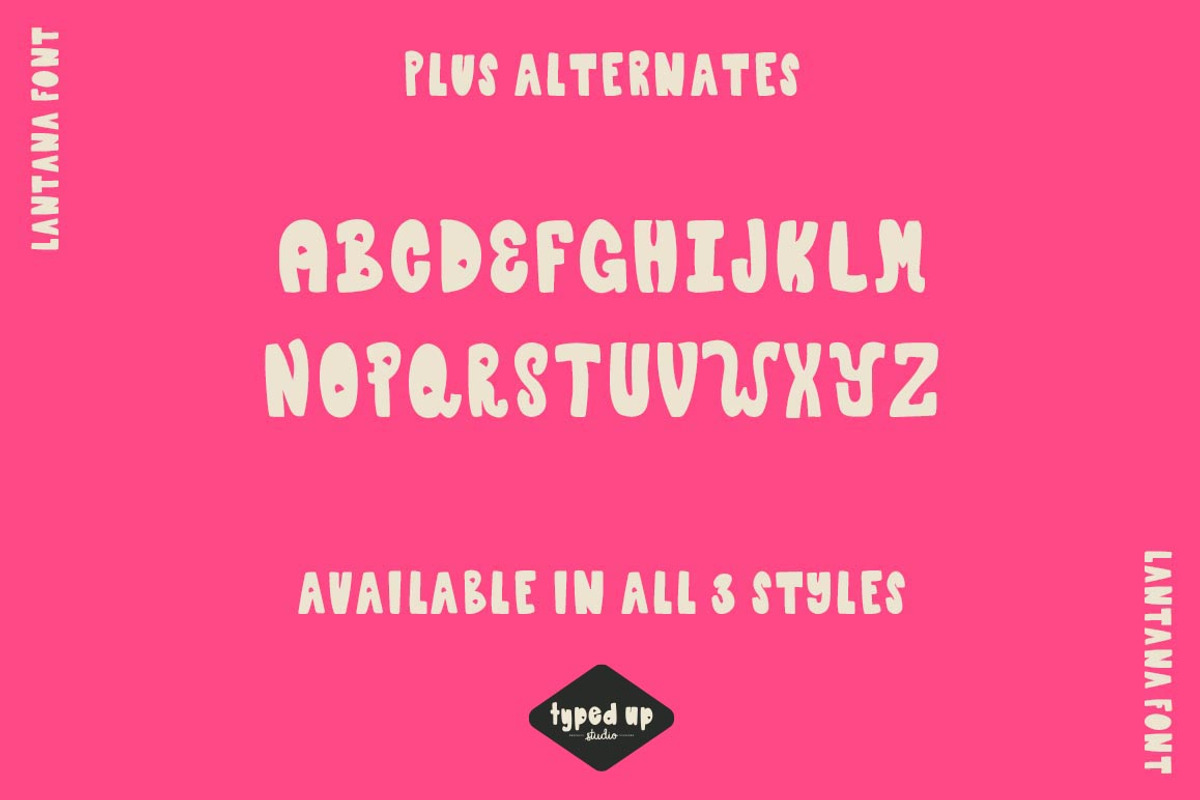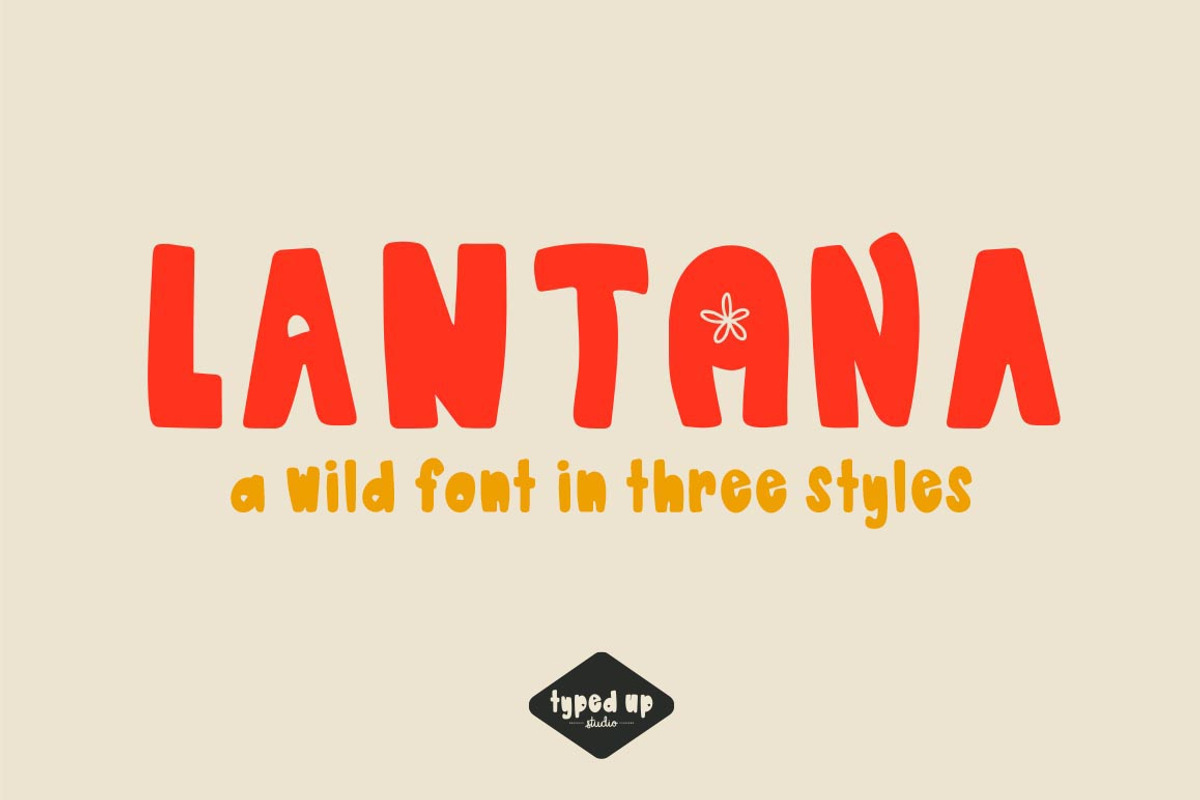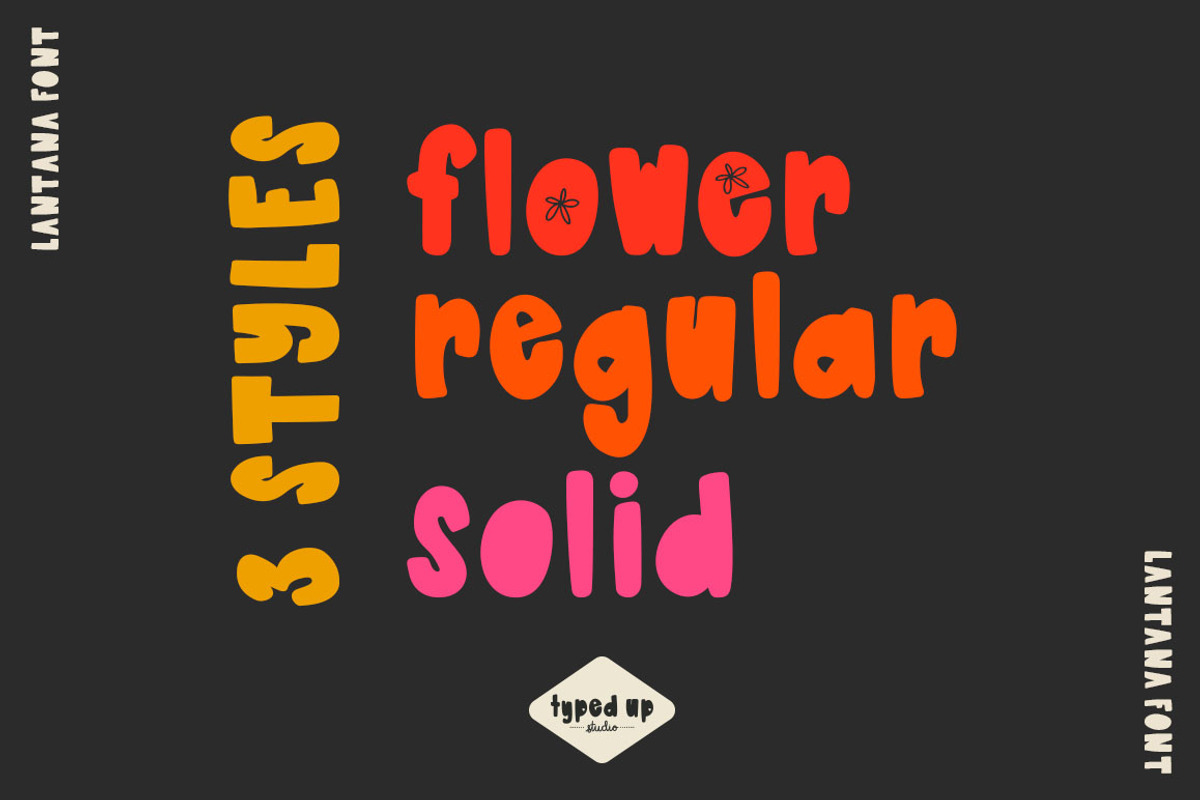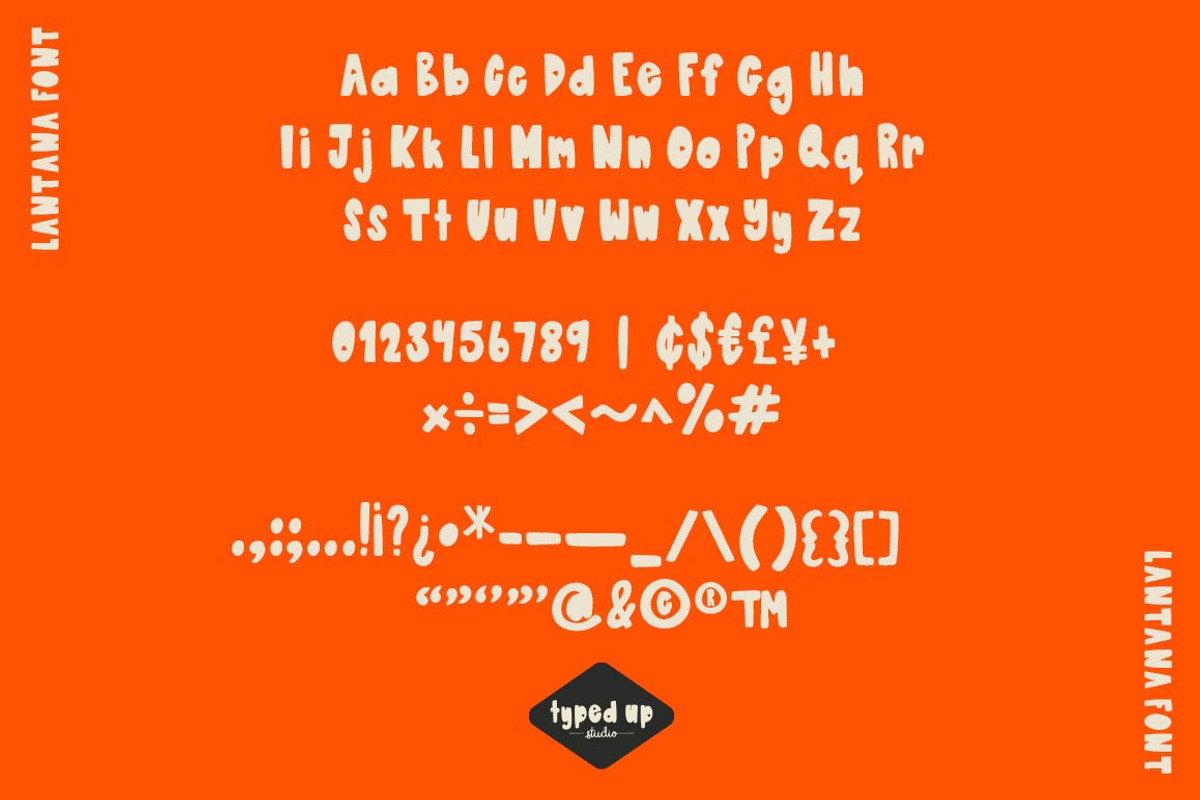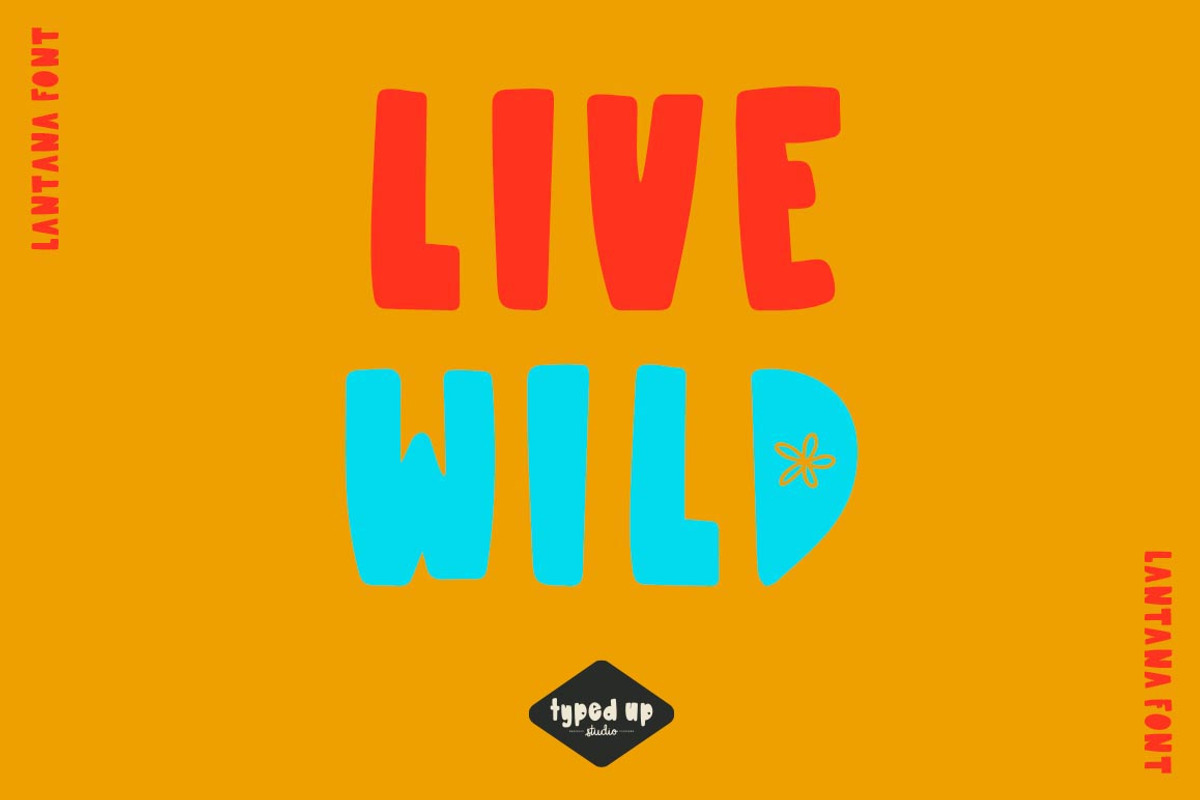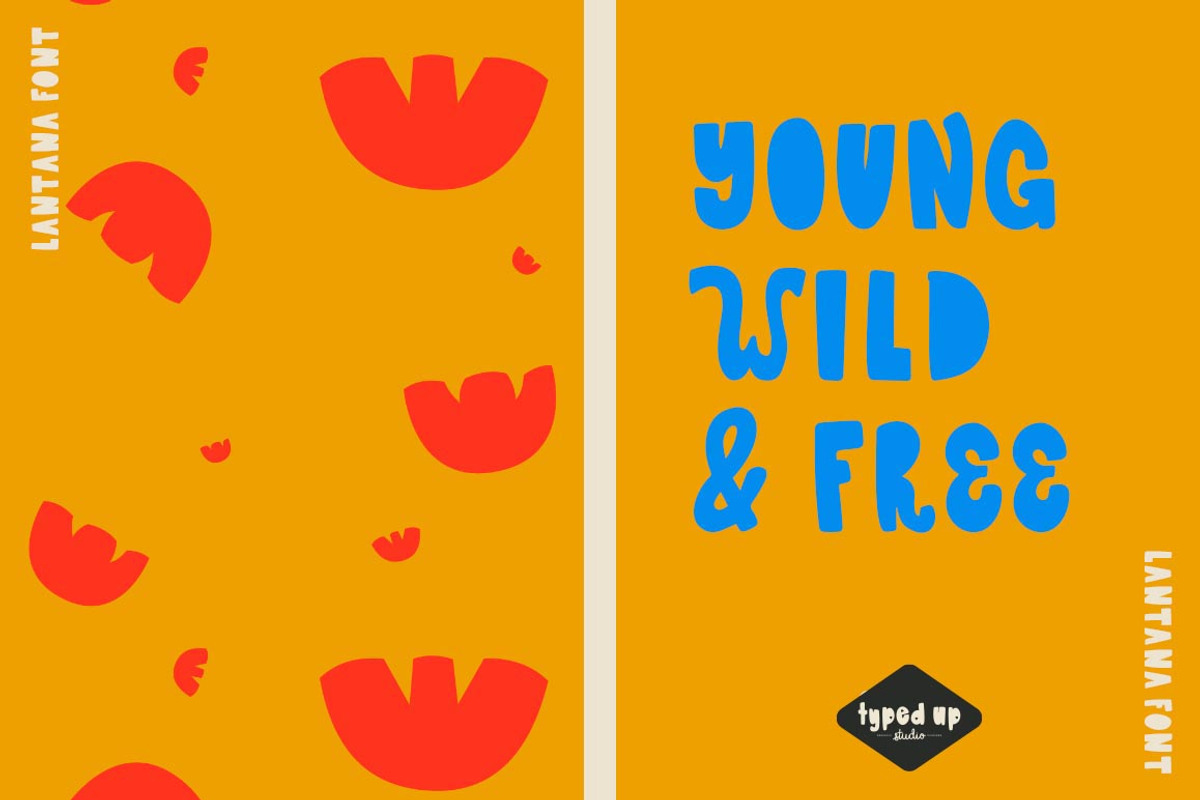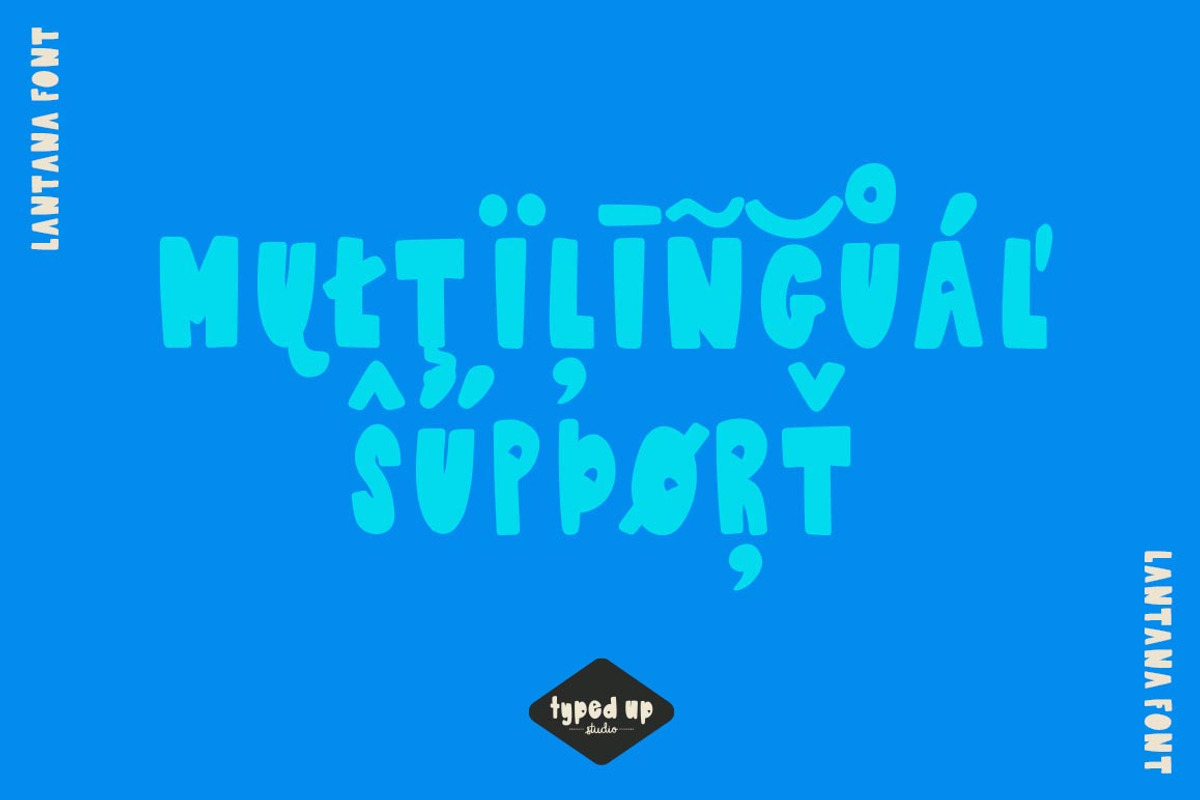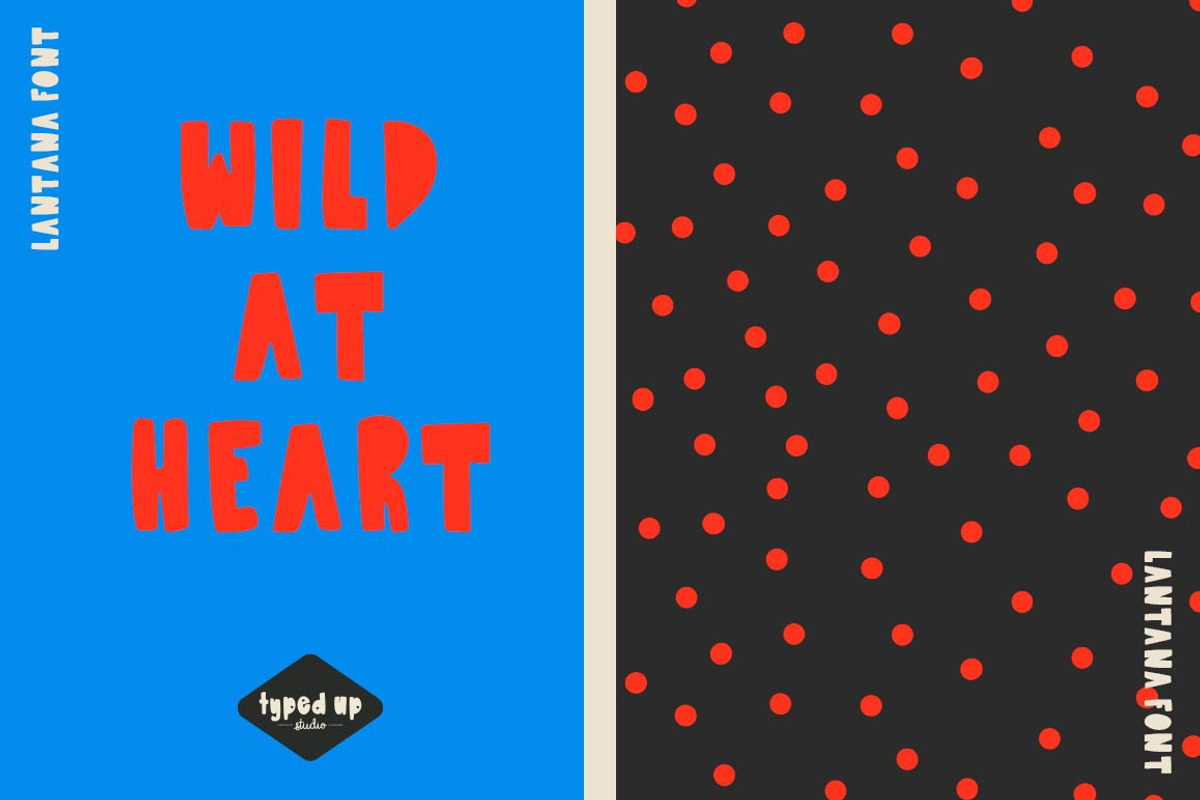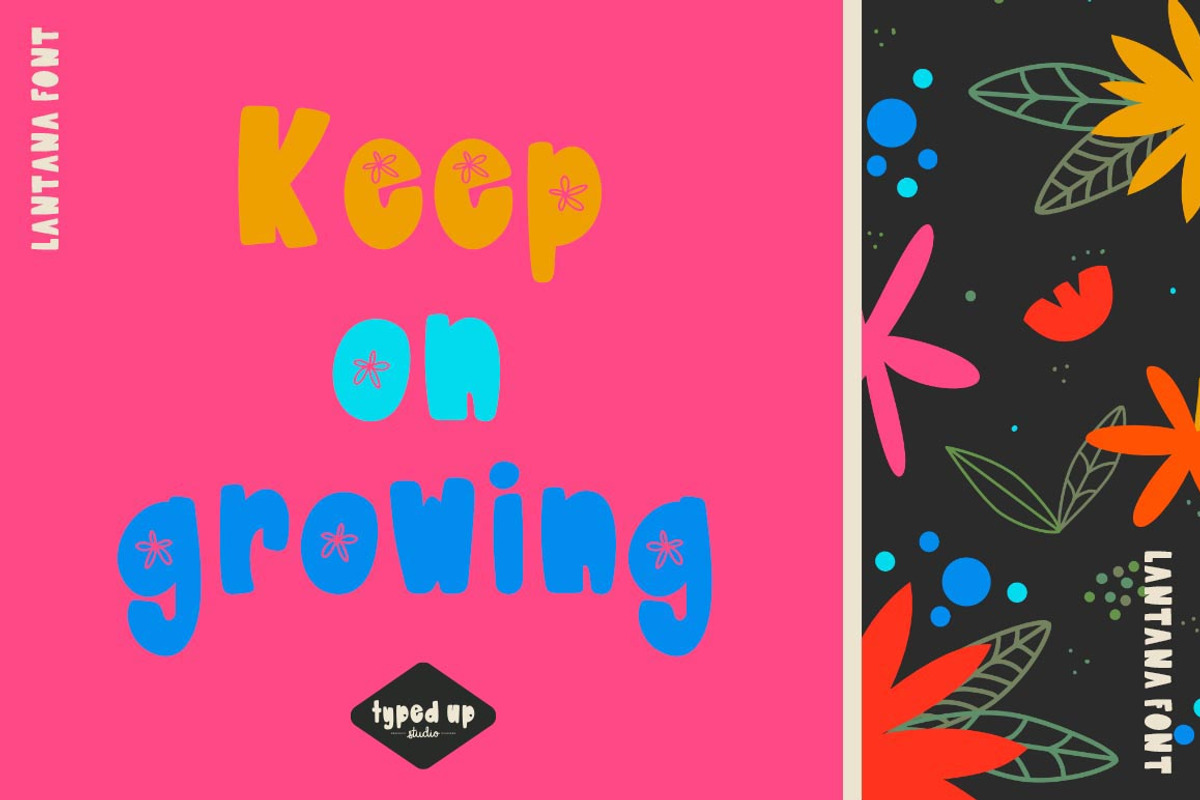
Lantana | Bubble Floral Display Font
Lantana is a funky, handwritten display font available in 3 styles, Regular, Solid, and Flower. Includes uppercase, lowercase, numbers, & punctuation in all 3 styles, plus 26 alternate capitals to add even more customization. Mix and match them for added fun! Lantana features language support for European, South American, and Oceanic languages - please test your characters in the type testing tool to make sure the characters you need are included before purchasing!